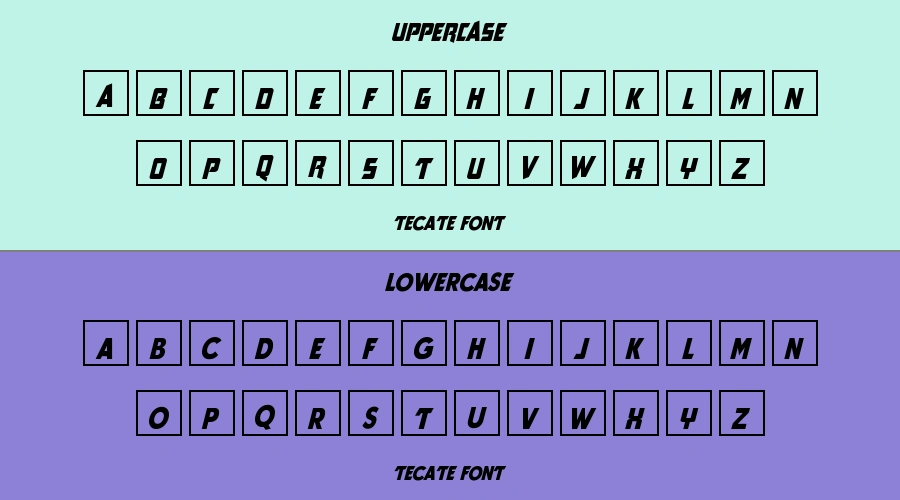
About Tecate Font
Tecate Font stands out for its distinctive combination of precise joints and design integrity. Ideal for traditional magazines, it provides the originality and quality certification that professional projects demand. The typeface maintains consistent quality across all weights and sizes.
Key features include refined balanced weights and practical historical alternates, enhancing typographic expression. In sidebars applications, Tecate Font demonstrates exceptional headline impact. The letterfit and historical reference contribute to its distinctive character and professional appeal.